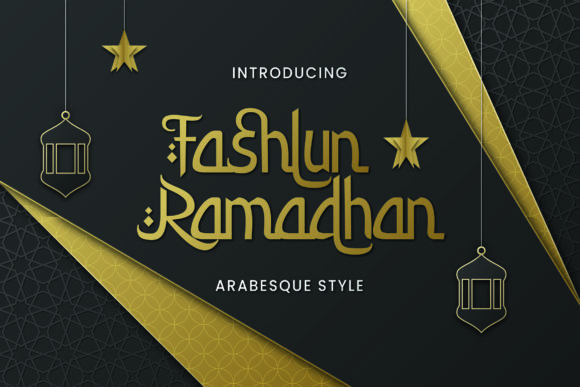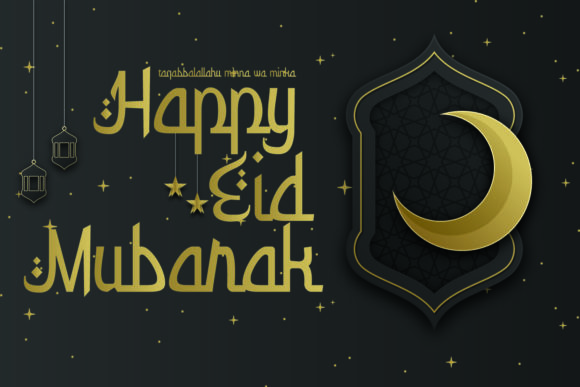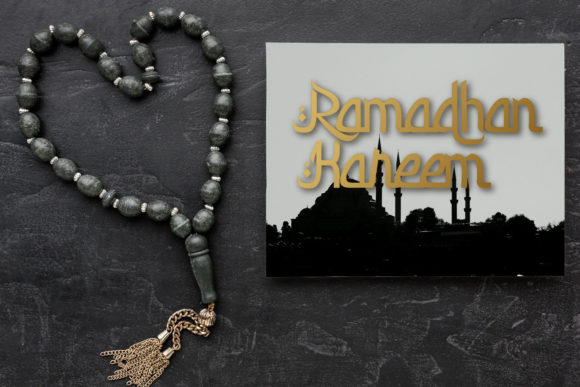
About Fashlun Ramadhan Font
Fashlun Ramadhan is an incredibly cool and unique display font. It has a modern yet whimsical style and it will undoubtedly immerse your designs into a magical world. This font is PUA encoded which means you can access all of the amazing glyphs and ligatures with ease!